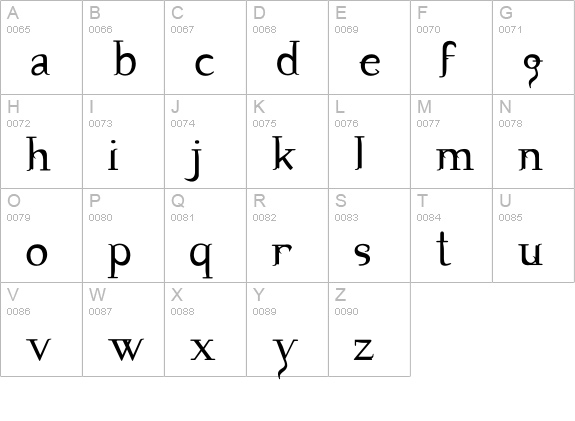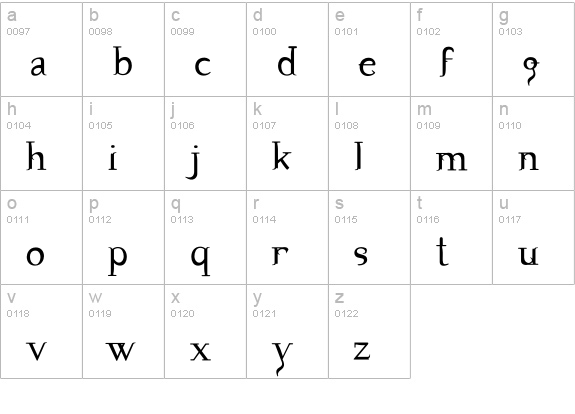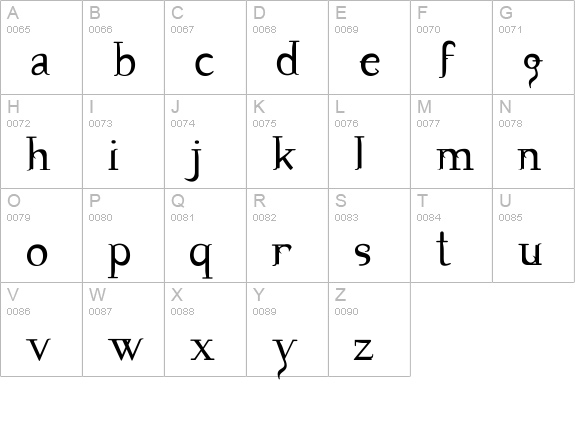
Tooth31-Medium Font Details
Tooth31-Medium is a balanced, medium-weight variant in the Tooth31 typeface family \xE2\x80\x94 well suited to sub-headlines, navigation, and balanced editorial work.
Tooth31-Medium font is a stylish and versatile typeface that exudes modernity and sophistication. With its clean lines and balanced proportions, this font is perfect for a wide range of design projects, from branding and advertising to editorial and web design. The Tooth31-Medium font offers a unique blend of elegance and simplicity, making it a go-to choice for those seeking a contemporary look with a touch of class. Its medium weight strikes the perfect balance between readability and impact, ensuring that your message is effectively communicated to your audience. One of the most appealing aspects of Tooth31-Medium font is that it is freely available to download at FontsMarket.com. This means that you can enjoy the incredible versatility and aesthetic appeal of this font without any cost. Whether you are a professional designer or a hobbyist, having access to high-quality fonts at no charge is a valuable asset. The Tooth31-Medium font is designed with meticulous attention to detail, resulting in a typeface that is not only visually appealing but also highly functional. Its wide range of characters and glyphs allows for seamless integration into various design projects, ensuring that you can unleash your creativity without any limitations. Whether you are working on a corporate identity, a magazine layout, or a website design, Tooth31-Medium font will elevate your work to new heights. Its timeless appeal and contemporary edge make it a versatile tool in your design arsenal, allowing you to create visually stunning and impactful designs. Download the Tooth31-Medium font for free at FontsMarket.com and discover the endless possibilities it offers for your design projects. Embrace the elegance and versatility of this font and let it take your designs to the next level.